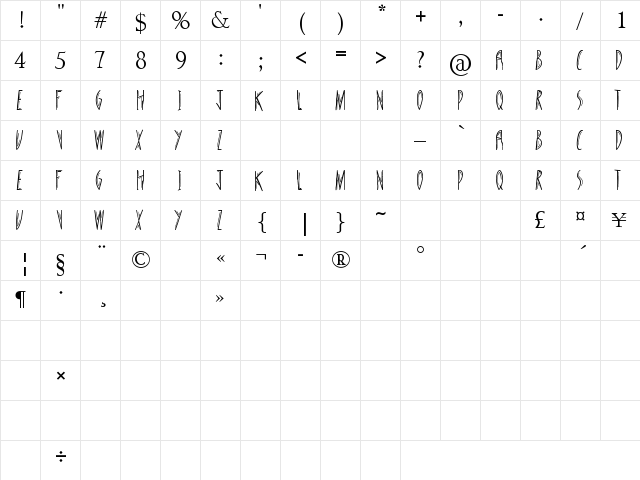
tall Regular
Design Context for tall Typeface
tall is a composed and adaptable typeface that performs quietly and consistently across a wide range of design contexts.